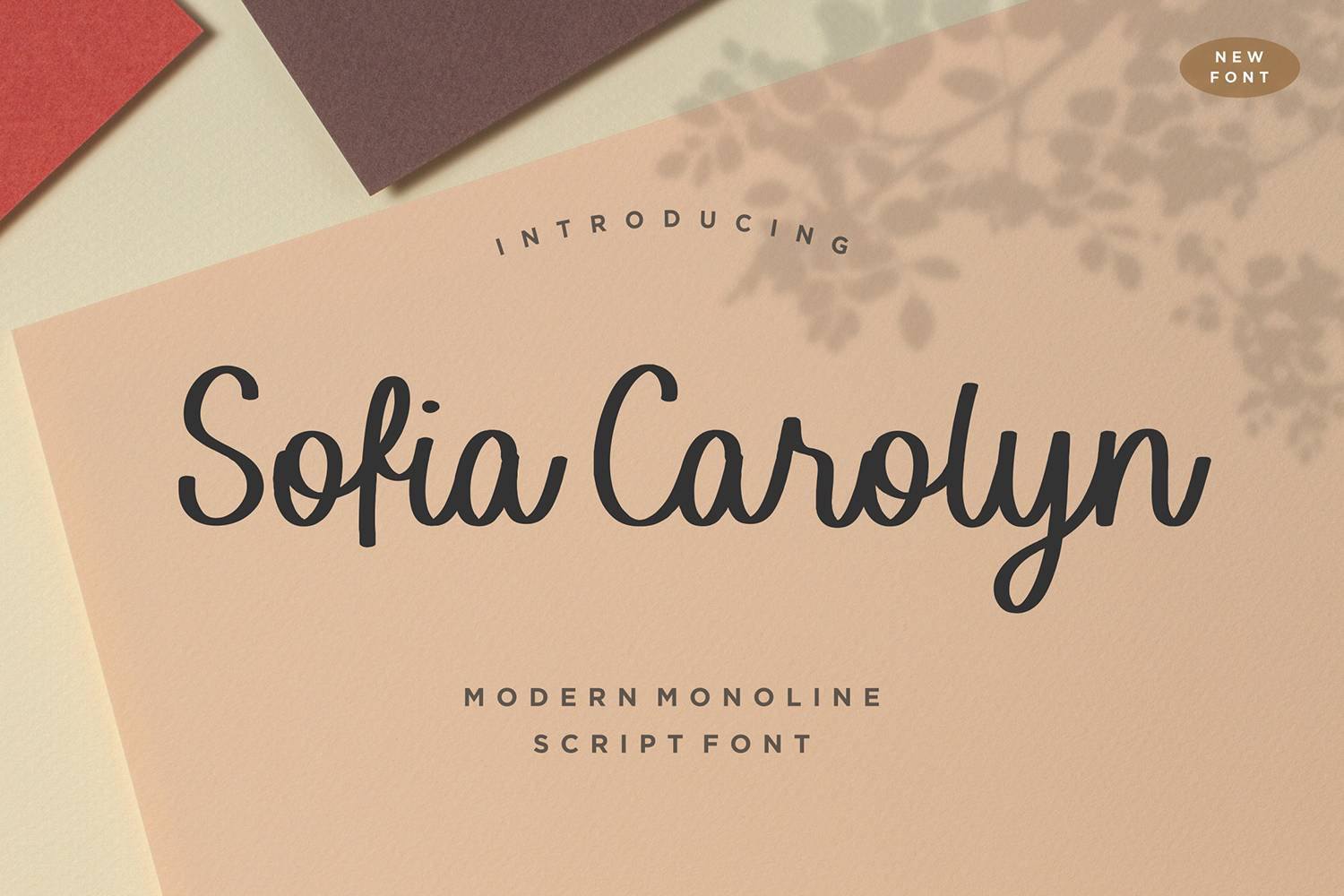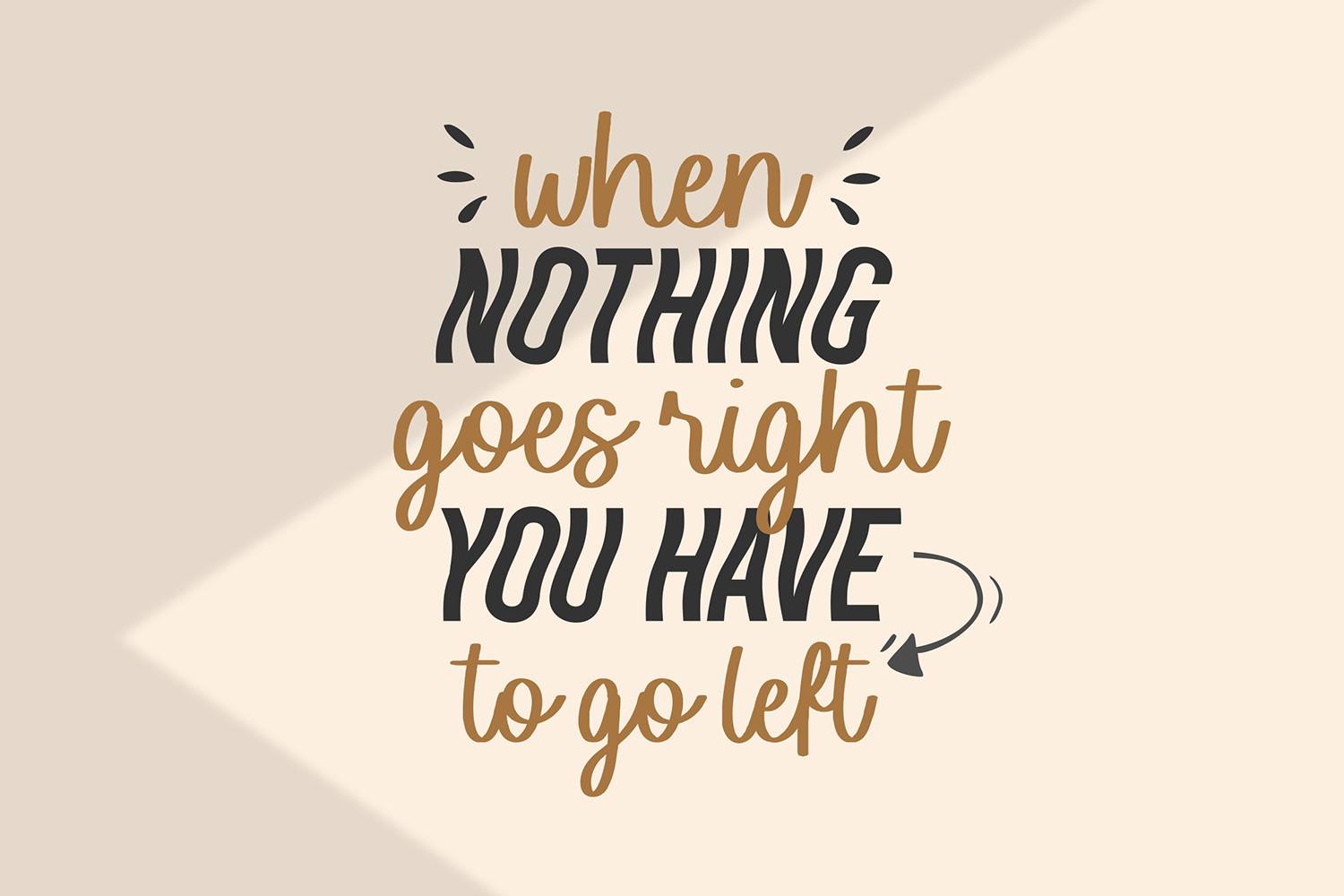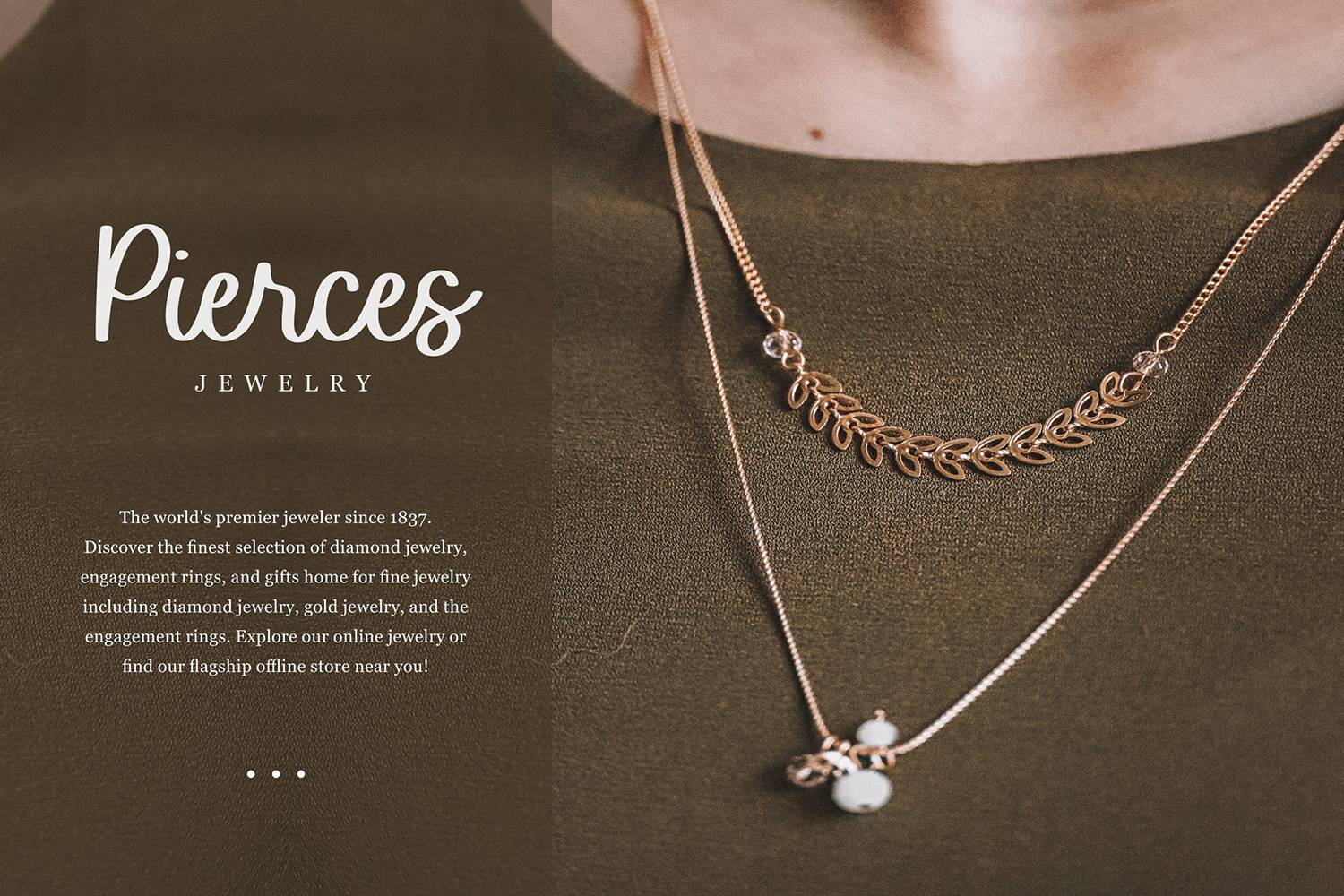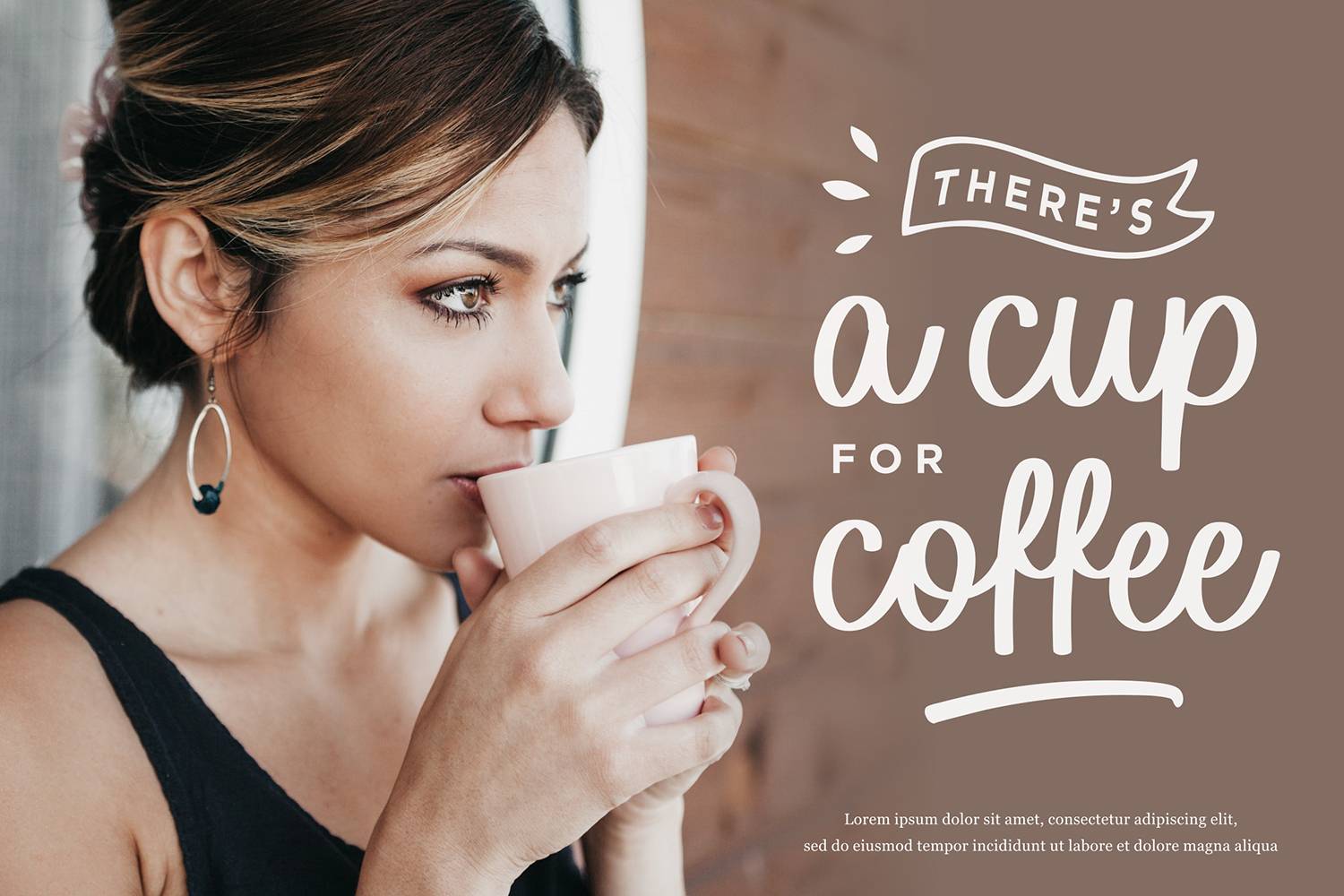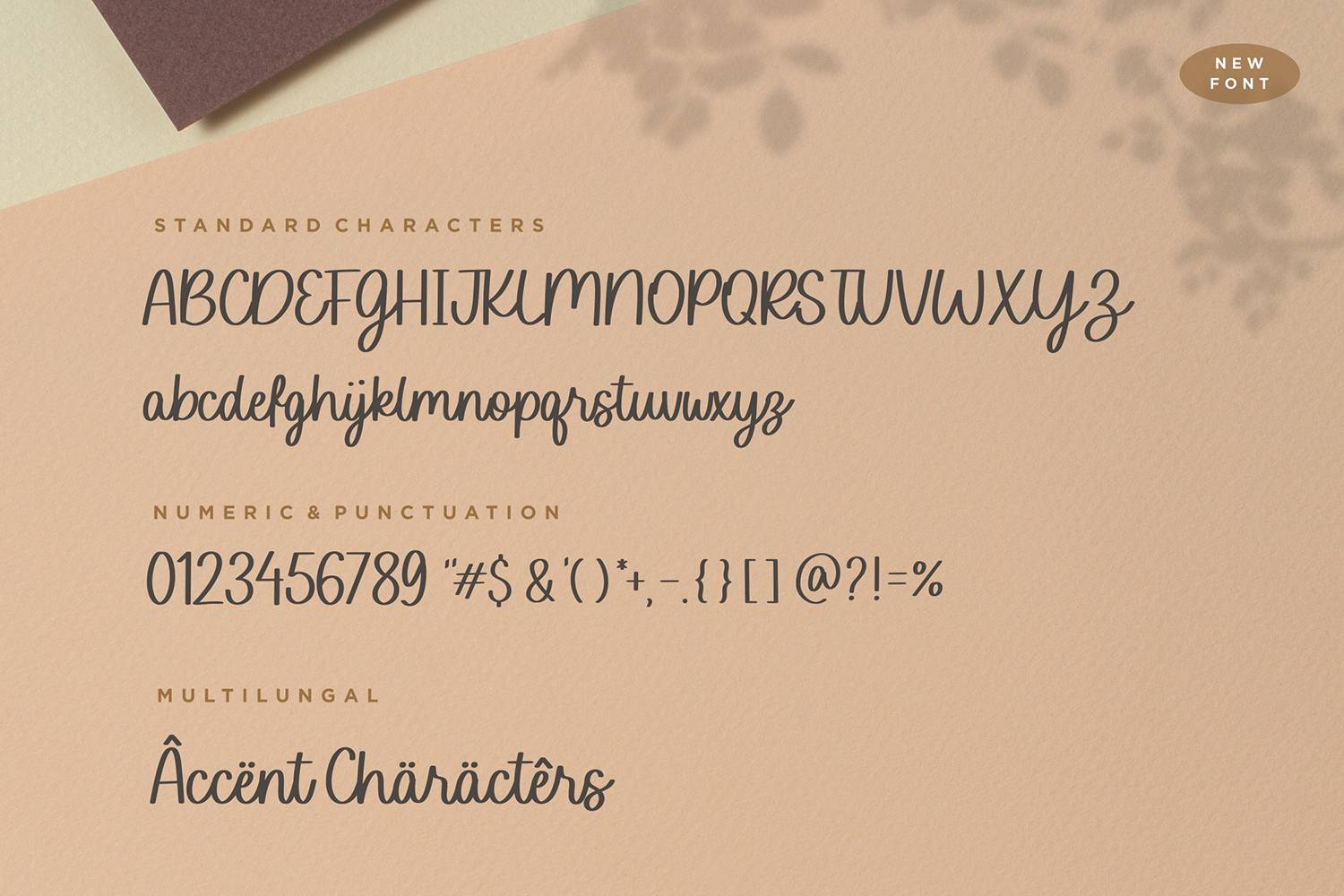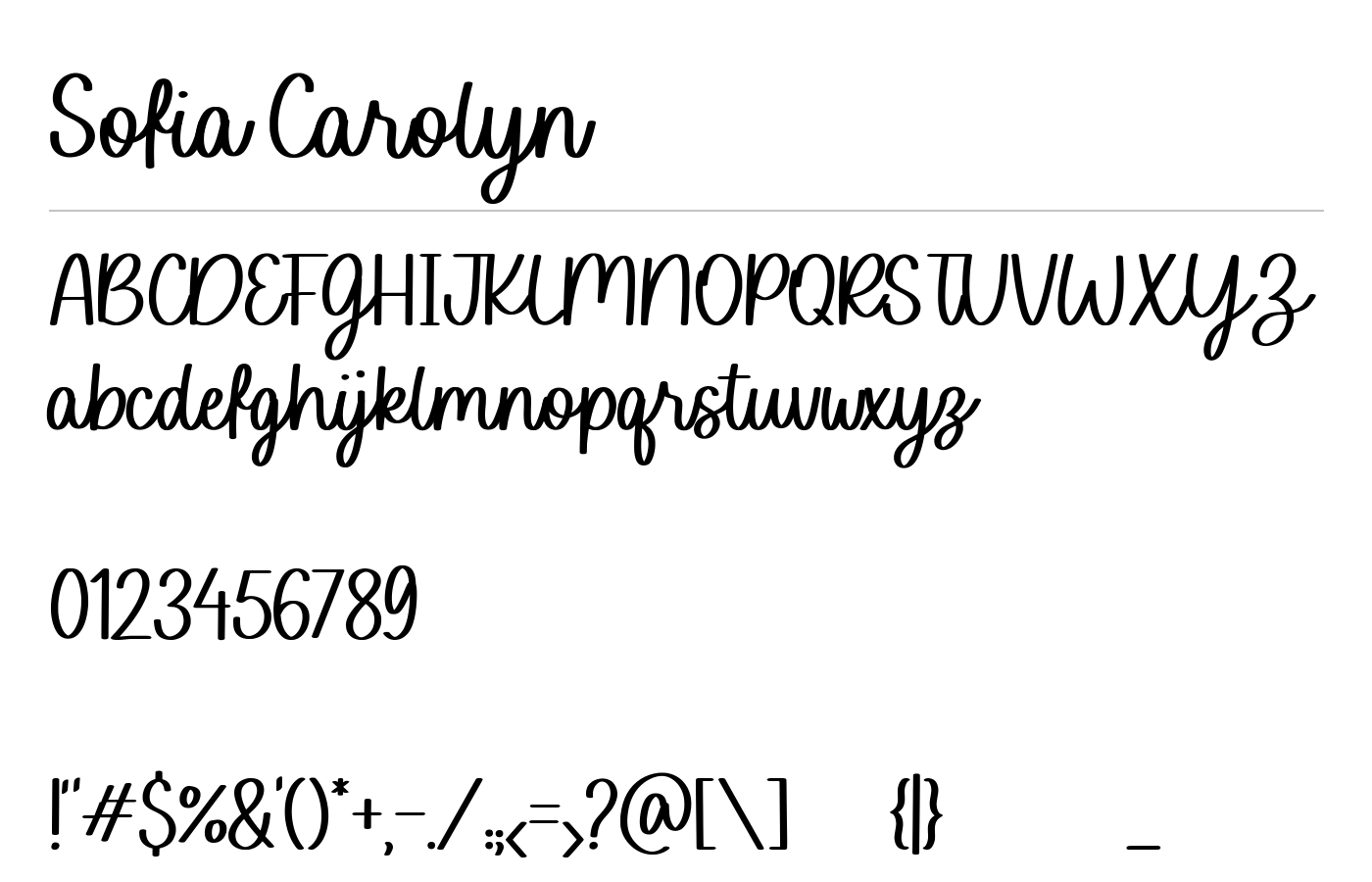
Sofia Carolyn is a charming handwritten script font with a slender, flowing style that feels both casual and refined. Its tall x-height and consistent stroke width give it great readability, while the playful loops and curves add a friendly, approachable personality perfect for invitations, branding, and lifestyle projects. This font works beautifully where a personal, elegant touch is desired without sacrificing clarity.
Sofia Carolyn Font
About Sofia Carolyn Font
| Font family | Sofia Carolyn Font |